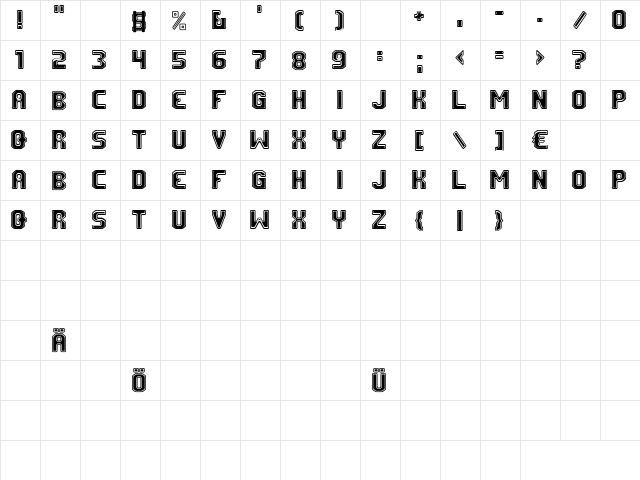
FM University Regular
Design Context for FM University Typeface
FM University is a composed and adaptable typeface that performs quietly and consistently across a wide range of design contexts.